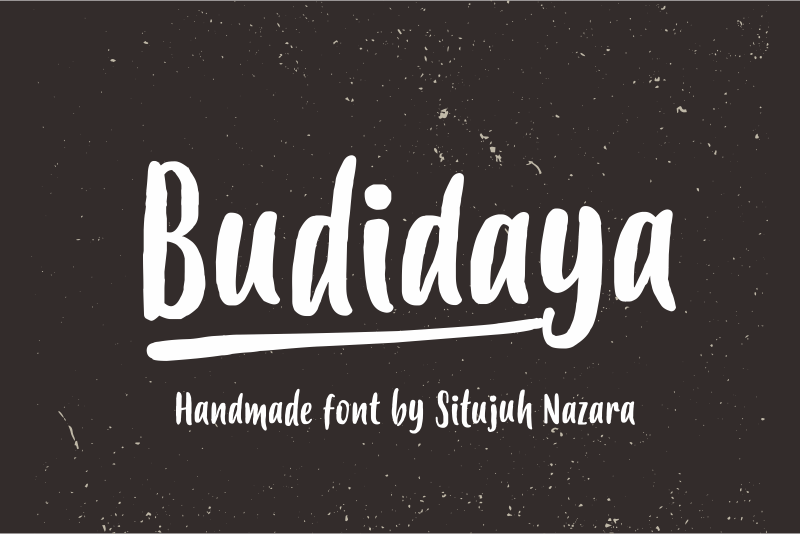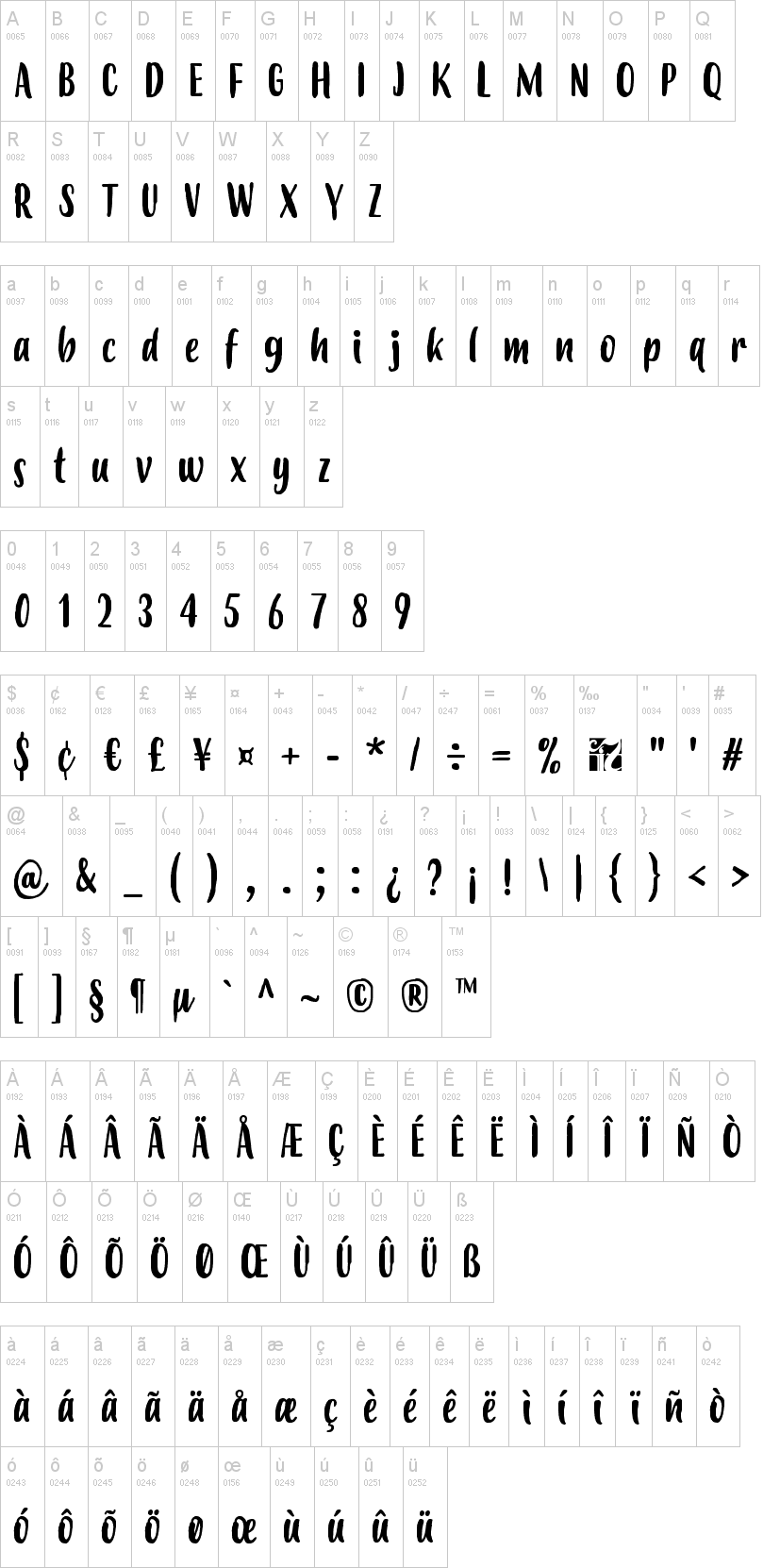
Note: The Budidaya font comes with a unique long underline ligature. You can activate it by typing underscore (_) twice or more (up until five times). For example: Budi____daya